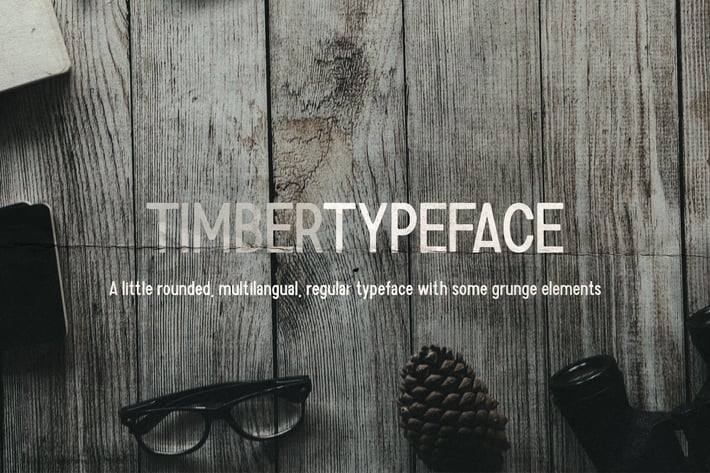
Timber Typeface
A little rounded, multilangual, regular typeface with some grunge elements. Brilliant choice for vintage logos, branding, arts, posters, etc.
Support spanish, portuguese, german, danish, french, canadian french, italian, western and central european languages.